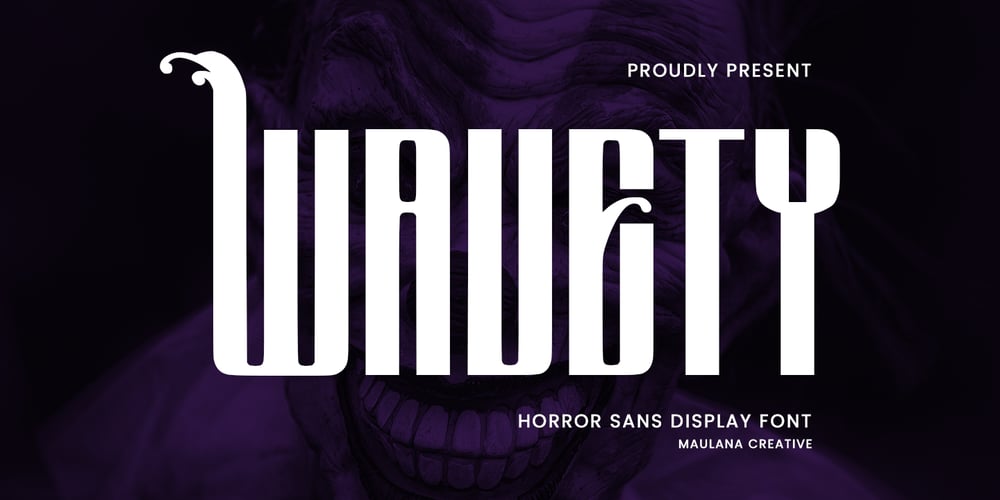
MC Wavety
MC Wavety font
MC Wavety Font Family was designed by Gilang Maulana and published by Maulana Creative. MC Wavety contains 1 styles and family package options. Wavety blackletter horror display font. Heavy stroke, vintage character with alternates. To give you an extra creative work. Wavety blackletter display font support multilingual language. This font is good for logo design, Social media, Movie Titles, Books Titles, a short text even a long text letter and good for your secondary text font with script or serif. Make a stunning work with Wavety blackletter font.—UppercaseCheers,Maulana Creative